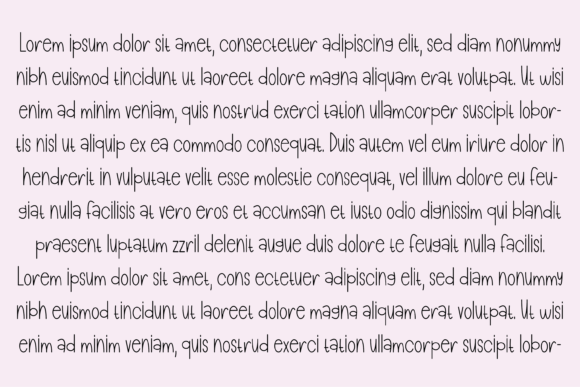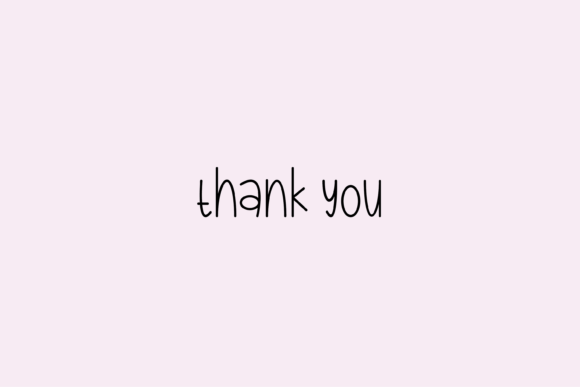
The Perfect Font for Your Next Design Project
Have you ever been stuck on a design project, staring at a blank page, and suddenly, the perfect font idea pops into your head? It’s a moment of pure creative joy, and it’s exactly what happens when you discover the Catter Font. This charming handwritten font is the ultimate solution for designers looking to add a touch of whimsy to their projects.
Catter Font is designed to be simple, friendly, and effortlessly stylish. It’s perfect for logos, wedding invitations, quotes, advertisements, and more. Whether you’re a seasoned designer or just starting out, this font is a valuable addition to your toolkit. Its unique personality will bring your designs to life and leave a lasting impression on your audience.
Catter Font Key Features
- Unique Characteristics: Catter Font features a unique blend of modern and vintage elements, with a distinctive cat-inspired design that adds a touch of whimsy and playfulness to any text.
- Font Family: Catter Font is a single-family font, making it easy to use and integrate into your designs.
- Scalability: Catter Font is designed to be highly scalable, ensuring that it looks great at any size, from small captions to large headlines.
Catter Font Review
I recently had the chance to work with the Catter Font, and I must say it’s been an interesting experience. Let’s dive into what works well and what doesn’t.
- Catter Font is quite unique and quirky, perfect for adding some personality to a design.
- It’s well-suited for titles and headings, where its bold and playful nature can really shine.
- The font is relatively easy to read, even at smaller sizes.
- The font’s quirkiness can also make it difficult to use in more formal or professional settings.
- Some of the letters may not be easily recognizable at smaller sizes, which can be a concern for body text.
- Catter Font may not be the best choice for projects that require a lot of text or intricate typography.
Catter Font is a solid choice for designers looking to add some flair to their projects. While it may not be the best option for every project, it’s certainly a great addition to any designer’s toolkit.
Catter Font is ideal for creative and playful designs, such as:
- Social media posts and graphics
- Flyers and brochures
- Infographics and presentations